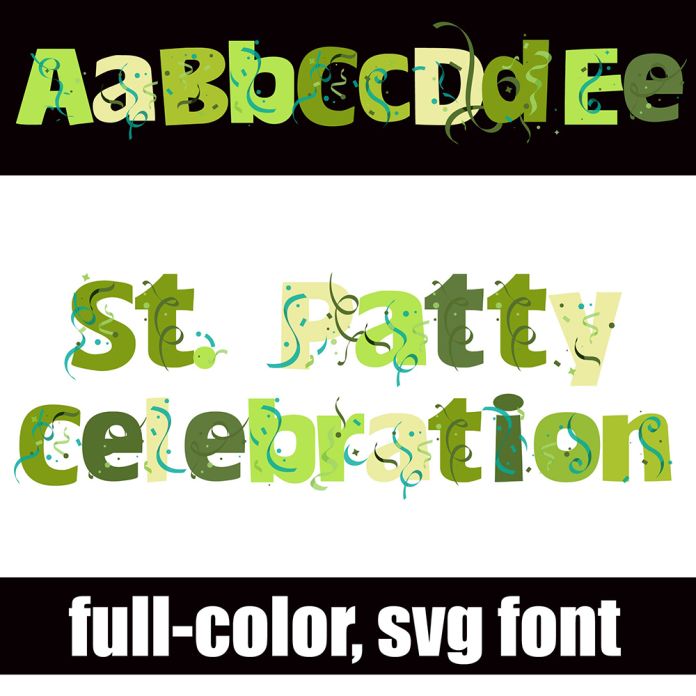
This full-color font features a blocky sans serif in a green color palette with confetti throughout. There is a full alternate upper and lowercase in alternate colors to help you stay creative. This font works best for titles, displays, posters and more. Please note color fonts will show as black in non compatible programs. This font type is compatible with Silhouette Studio.